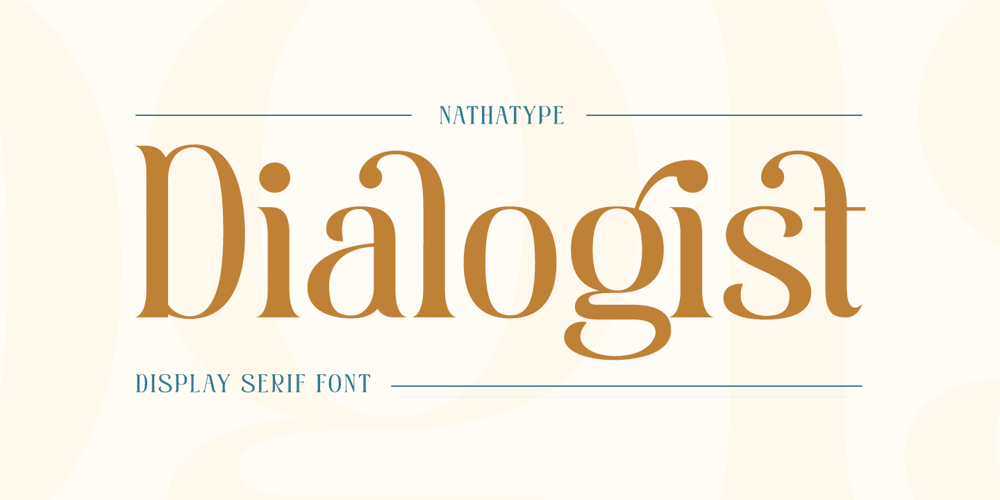
Dialogist Font Family was designed by Donis Miftahudin and published by Nathatype. Dialogist contains 1 styles and family package options. Dialogist is a display serif font animated in balanced beauty with curvy lines on each letters’ edges to make it look elegant and classic. Due to its bigger size than any other serif fonts, it becomes a noticeable and eye-catching font design. Proportions among letters equal to low contrasts, but it is still legible due to the font’s wide spaces. As a result, you may apply this font for any text sizes. Additionally, you can enjoy various features available here.Features: Stylistic Sets Ligatures Multilingual Supports PUA Encoded Numerals and Punctuations Dialogist fits best for various design projects, such as posters, banners, logos, magazine covers, quotes, headings, printed products, invitations, name cards, merchandise, social media, etc. Find out more ways to use this font by taking a look at the font preview.Thanks for purchasing our fonts. Hopefully, you have a great time using our font. Feel free to contact us anytime for further information or when you have trouble with the font. Thanks a lot and happy designing.